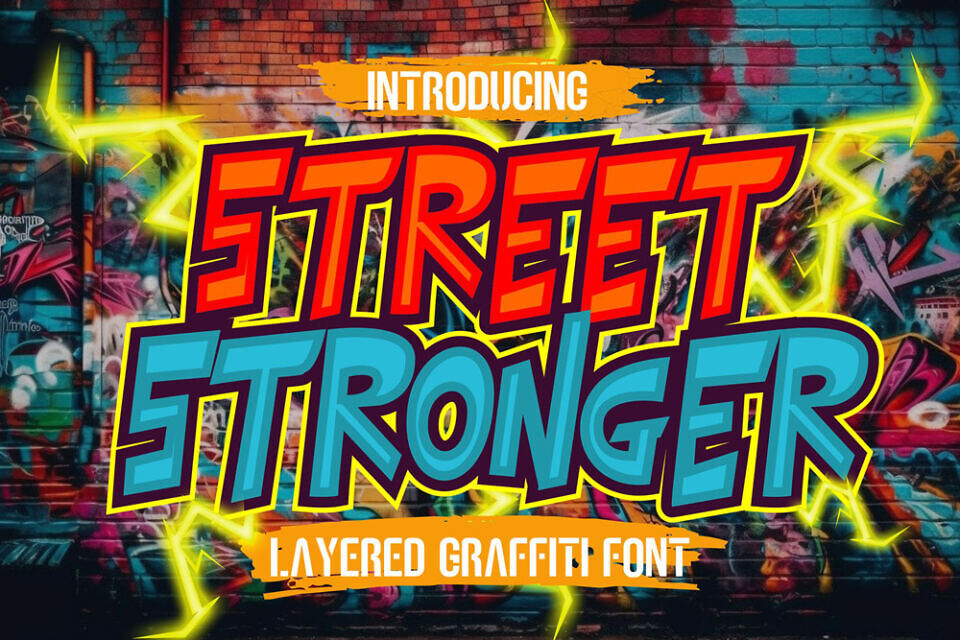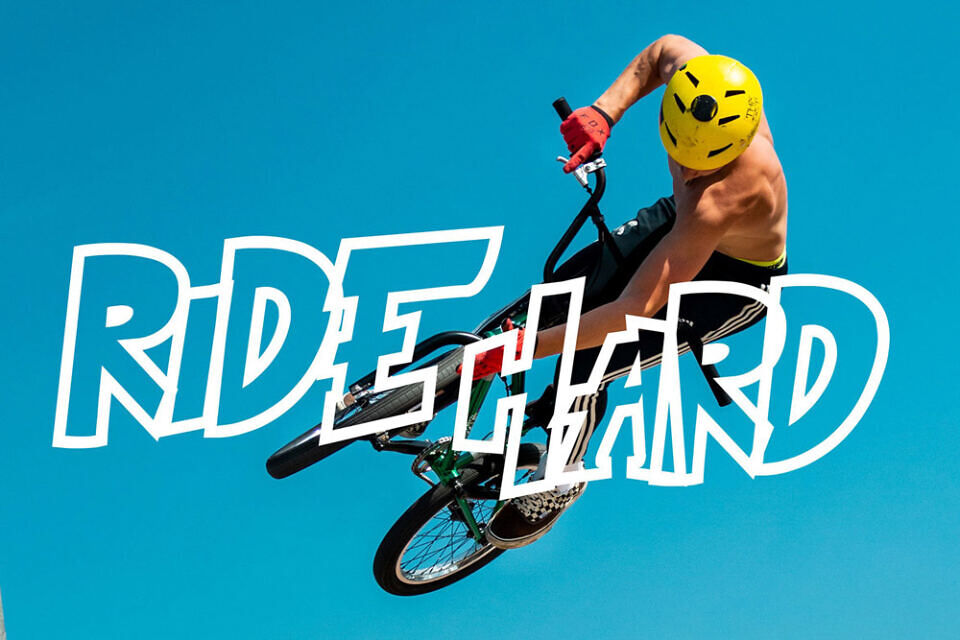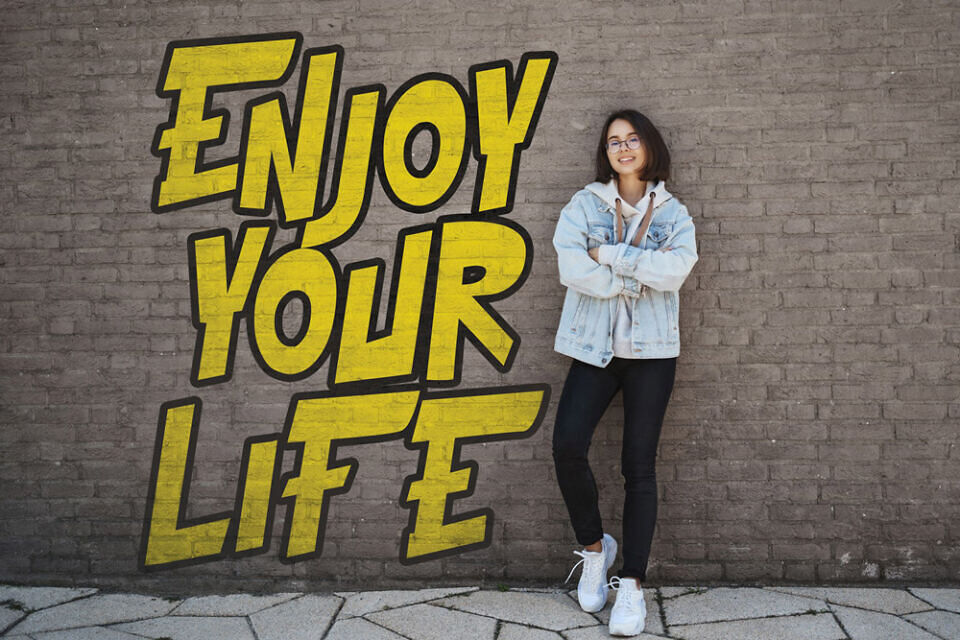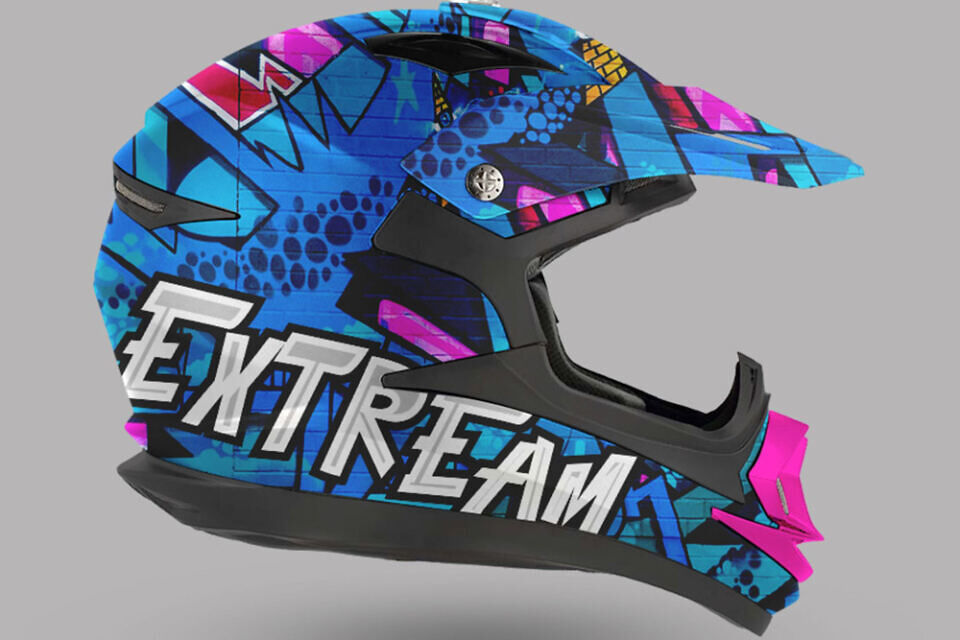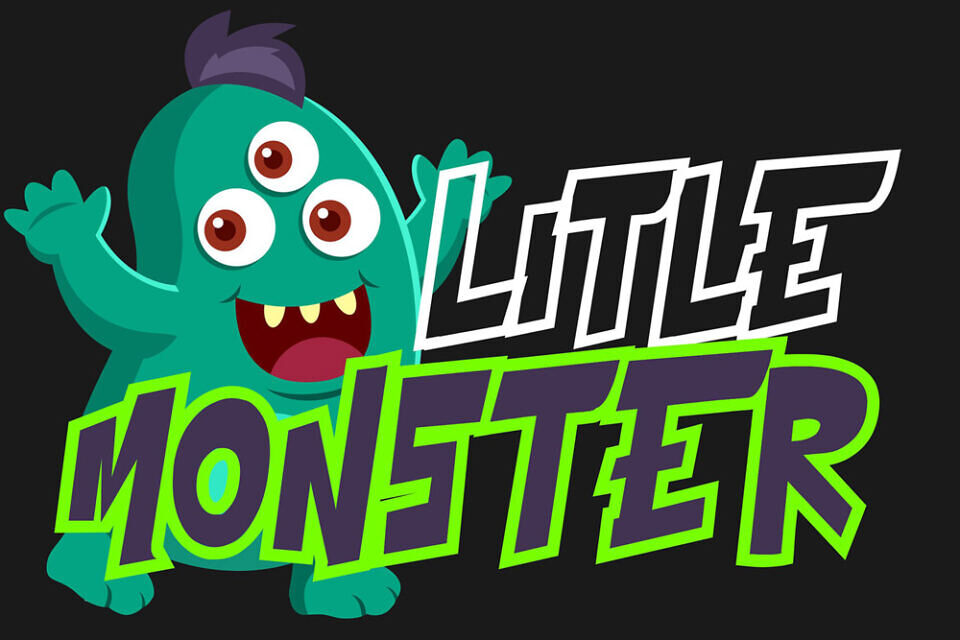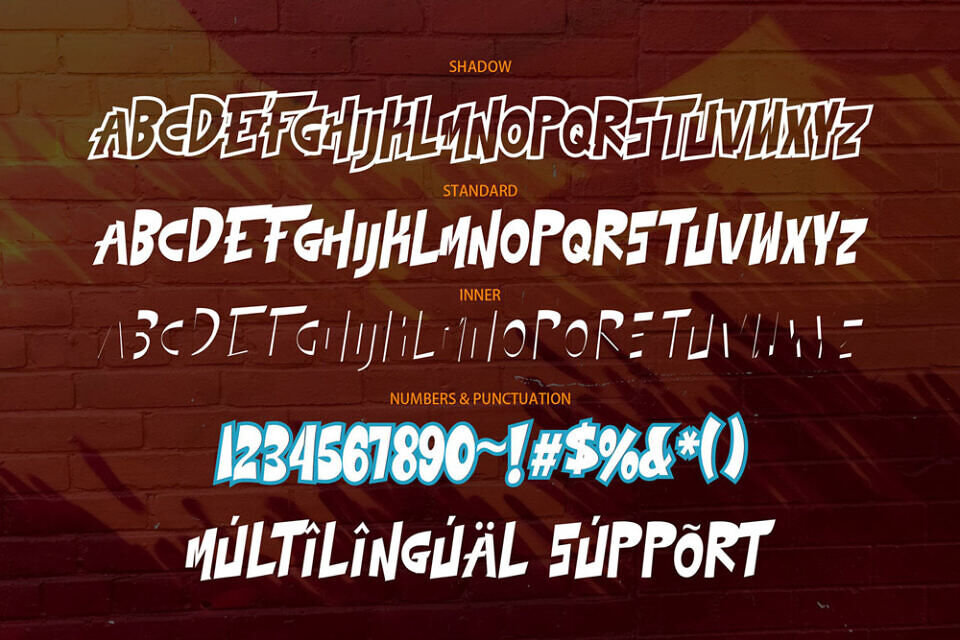
Street Stronger is a powerful and versatile graffiti font designed to bring depth, dimension, and bold urban energy into your designs. Built as a complete layered system, this layered graffiti font allows you to create striking typographic compositions with ease. Whether you’re working on streetwear branding, poster design, or music visuals, Street Stronger graffiti font delivers a strong visual presence that stands out instantly.
This urban graffiti font captures the spirit of street culture while offering a structured and professional approach to typography. With multiple layers working together, Street Stronger transforms simple text into dynamic and eye-catching visuals, making it a must-have graffiti display font for modern designers.